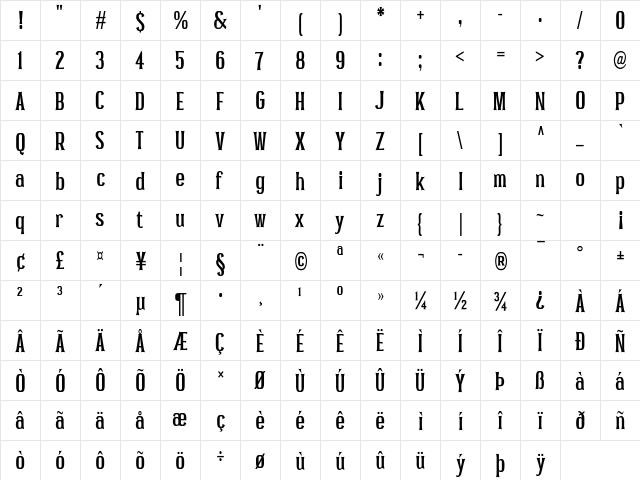
Pocus Primera Regular
| Designer | Wahyu S. Adi Wibowo |
Design Context for Pocus Primera Typeface
Pocus Primera offers clean, dependable letterforms without strong stylistic allegiance, making it a practical choice for designers who need flexibility.